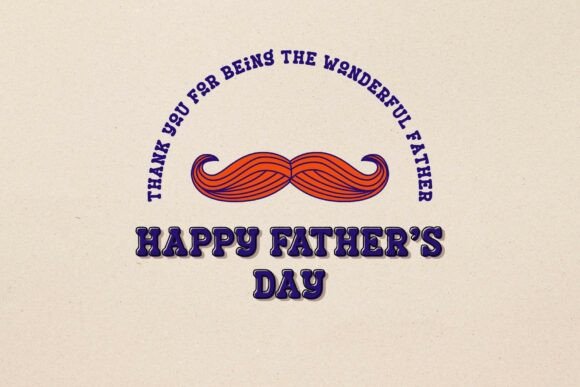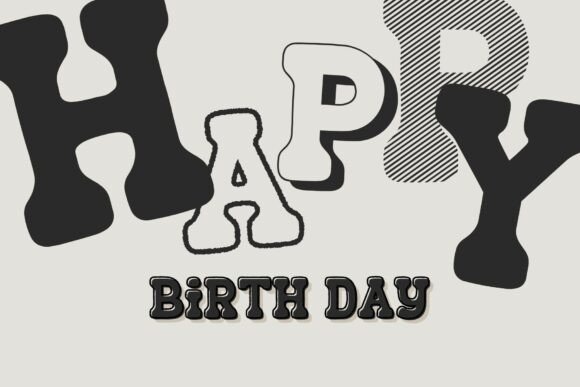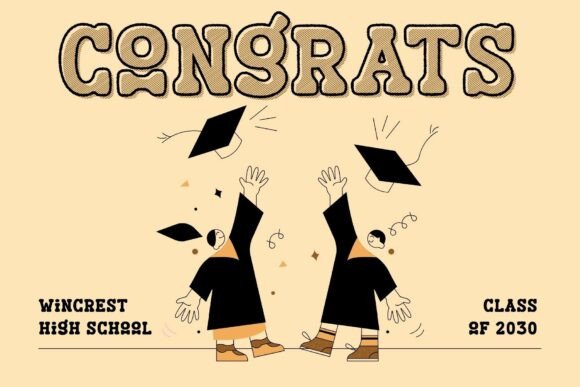
Bring Back the Groovy Vibes with Fox Cynthia Font
I was tasked with creating a poster that would transport customers back to the groovy 70s. I wanted a font that was bold, playful, and full of personality. After scouring through my font library, I came across Fox Cynthia Font, and I knew I had found the one. Its quirky curves, chunky serifs, and fun 70s-inspired style instantly caught my attention. I couldn’t wait to dive in and explore its features.
An Honest Review of Fox Cynthia Font
- ✨ Retro charm: Fox Cynthia Font is perfect for adding a splash of nostalgic fun to your designs.
- ✅ Versatility: With 4 unique styles – Regular, Strokes, Outline, Shadow – you can mix and match to create dynamic typography.
- 👍 Great for headlines: Fox Cynthia Font is perfect for eye-catching headlines, vibrant posters, and branding.
- 🤔 Limited use cases: While Fox Cynthia Font is amazing for retro-themed designs, it might not be the best fit for more formal or traditional projects.
- ⚠️ Glyph limitations: As with any font, there might be limitations to the number of glyphs or special characters available.
The Backstory Behind Fox Cynthia Font
Fox Cynthia Font was designed with one goal in mind: to bring back the groovy vibes of the 1970s. The designer, inspired by the fun and playfulness of retro culture, created a font that would add a splash of joy to any design project. With its quirky curves and chunky serifs, Fox Cynthia Font is the perfect addition to any designer’s font collection.
Q: What type of designs is Fox Cynthia Font best suited for?
A: Fox Cynthia Font is perfect for retro-themed designs, such as posters, flyers, branding, and packaging. It’s also great for social media graphics, t-shirt designs, and greeting cards.